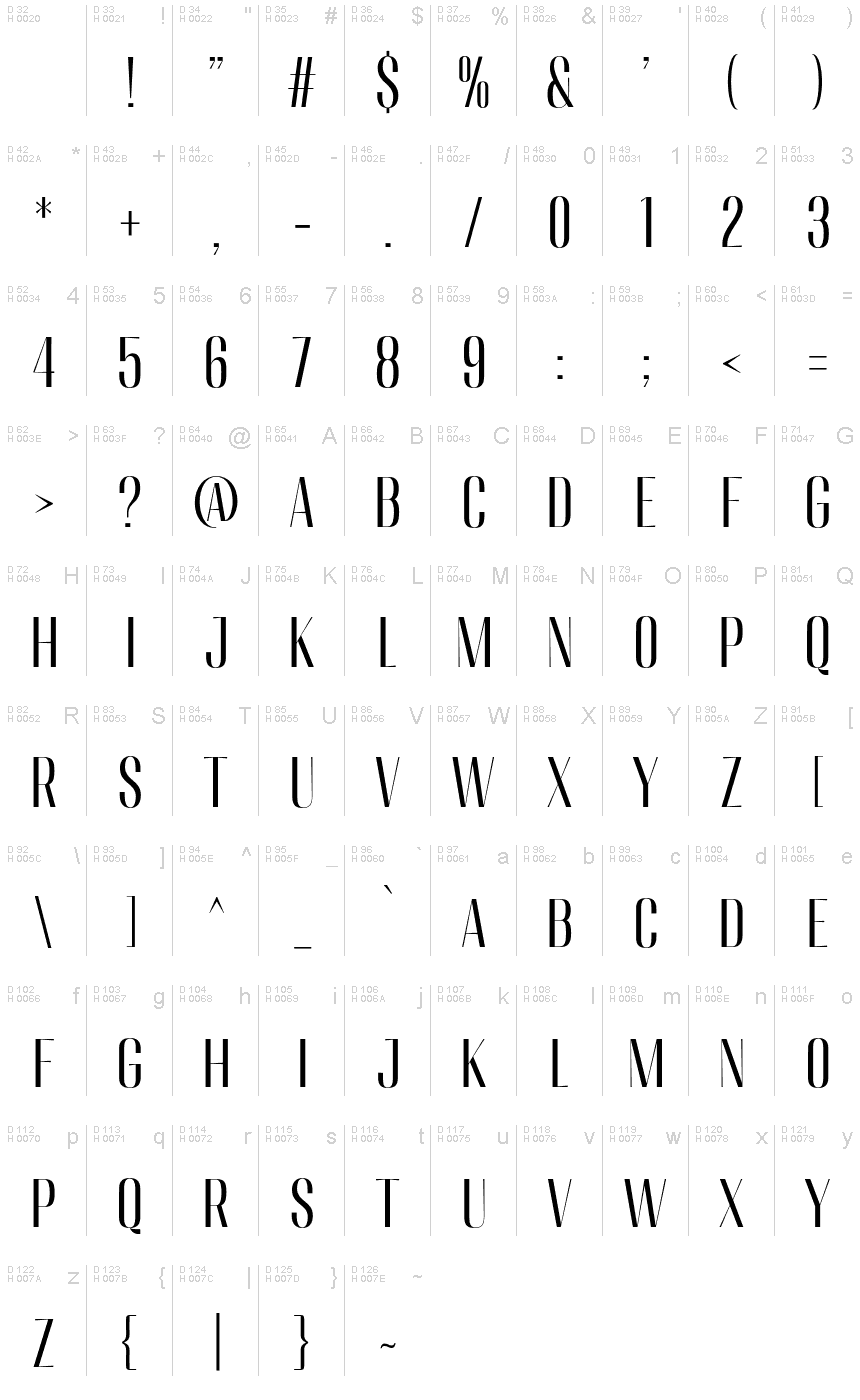
Migha-Condensed
Migha Condensed is a sleek and modern sans serif font that is perfect for any design project that requires a clean and sophisticated look. The semi-light weight gives it a subtle elegance, while the extra-condensed width makes it ideal for projects where space is limited. Whether you're designing a logo, website, or brochure, Migha Condensed will make your text stand out with its unique blend of simplicity and style. This font is suitable for branding projects, editorial designs, product packaging, and much more. Its versatility makes it a must-have in any designer's toolkit.